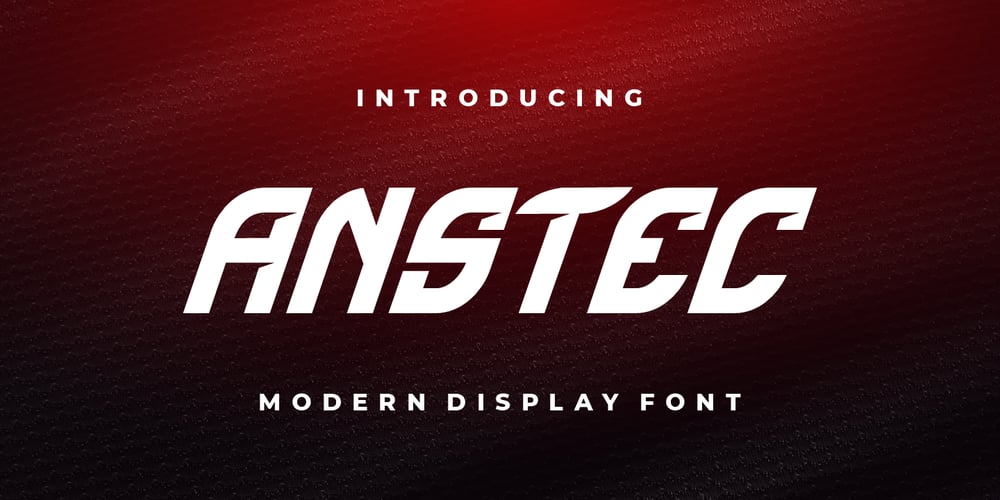
Anstec
Anstec font
Anstec Font Family was designed by Burhan Afif and published by HansCo. Anstec contains 1 styles and family package options. ANSTEC is a sharp italic font with unique style that will make your design looks modern, geometric and futuristic. You can use this font for any purpose, especially to make logotype like a technology, sports or esport logo brand. This typeface is comes in ALL CAPS, punctuation, symbols, numerals, etc also support multilingual in all caps.Highly recommended to use it in OpenType capable software – there are plenty out there nowadays as technology catches up with design. The OpenType features can be accessed by using programs such as Adobe Illustrator, Adobe InDesign, Adobe Photoshop Corel Draw X version, Afinity and more. Enjoy!